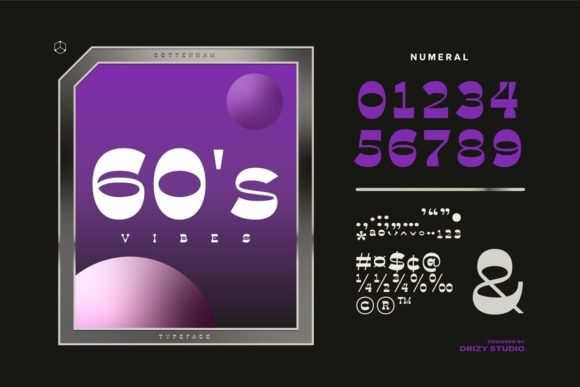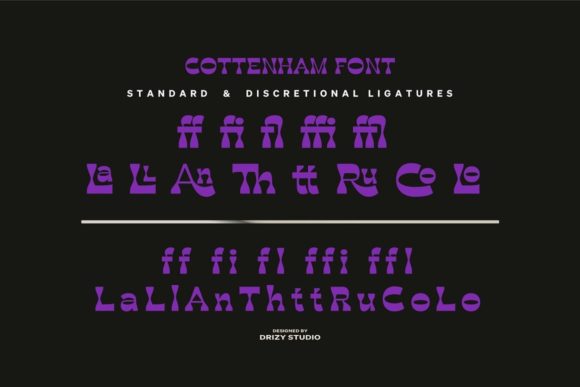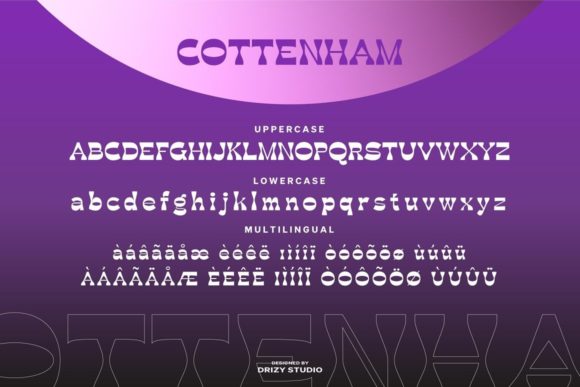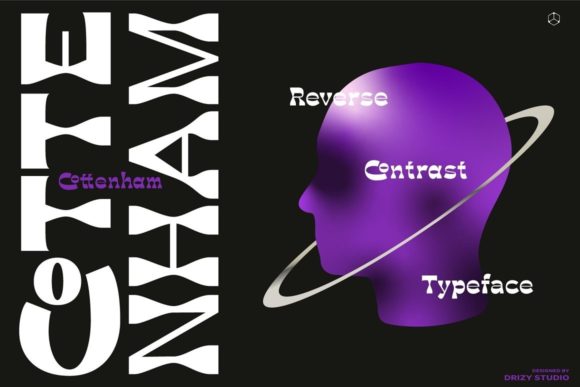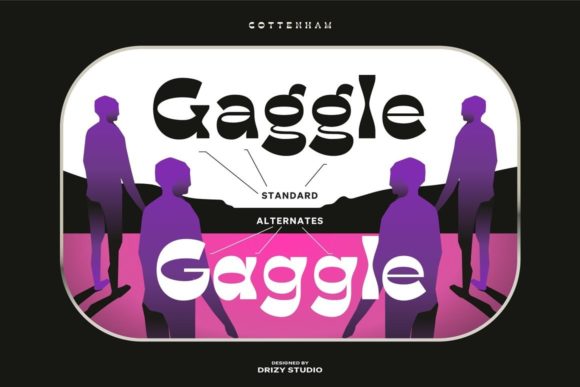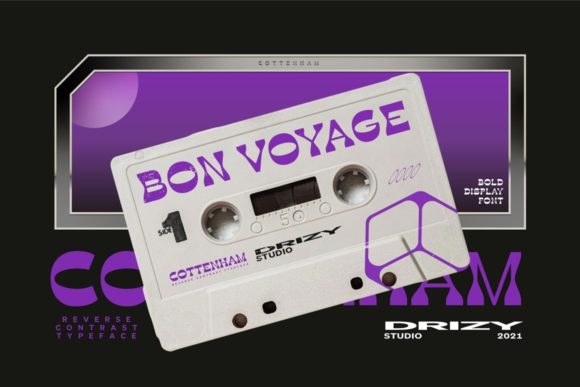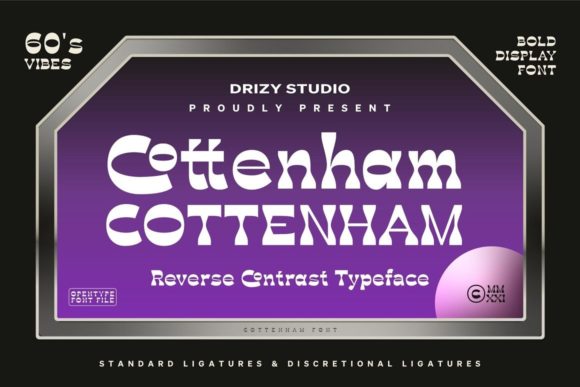
Cottenham Font: Elevate Your Creative Projects with a Futuristic Display Font
In the world of typography, fonts play a crucial role in conveying the tone and aesthetic of a creative project. Whether you’re a designer, craftsperson, or simply a DIY enthusiast, finding the right font can make all the difference. If you’re looking for a unique and futuristic display font that can elevate the look of your project, look no further than Cottenham Font. In this article, we’ll explore the features and benefits of Cottenham Font, and why it’s an excellent choice for a wide range of creative applications.
What is Cottenham Font?
Cottenham Font is a distinctive and modern display font designed to add a touch of futurism to any creative project. Its sleek lines, geometric shapes, and carefully crafted letterforms make it perfect for projects that require a bold and eye-catching typography. Whether you’re working on a movie title, sci-fi book cover, poster, or science magazine, Cottenham Font is an excellent choice.
Key Features of Cottenham Font
So, what makes Cottenham Font so special? Here are some of its key features:
- Unique and Futuristic Design: Cottenham Font boasts a one-of-a-kind design that’s both modern and futuristic. Its geometric shapes and sleek lines give it a cutting-edge look that’s sure to turn heads.
- Highly Versatile: Cottenham Font is an extremely versatile font that can be used in a wide range of creative projects, from movie titles and book covers to posters and science magazines.
- Easily Readable: Despite its futuristic design, Cottenham Font is surprisingly easy to read, making it perfect for projects that require both style and substance.
- Scalable: Cottenham Font is designed to be scalable, meaning it looks great in both large and small sizes.
Use Cases for Cottenham Font
Cottenham Font is an incredibly versatile font that can be used in a wide range of creative projects. Here are some examples of use cases where Cottenham Font shines:
- Movie Titles: Add a touch of futurism to your movie titles with Cottenham Font. Its bold and eye-catching design is perfect for sci-fi movies, action films, and more.
- Sci-Fi Books: Give your sci-fi book covers a professional and polished look with Cottenham Font. Its futuristic design is perfect for books, e-books, and audiobooks.
- Posters: Create eye-catching posters for events, products, or services with Cottenham Font. Its bold and modern design is sure to grab attention.
- Science Magazines: Add a touch of sophistication to your science magazines with Cottenham Font. Its clean and readable design makes it perfect for articles, headlines, and more.
Why Choose Cottenham Font?
So, why should you choose Cottenham Font for your creative projects? Here are some compelling reasons:
- Stand Out from the Crowd: Cottenham Font is a unique and distinctive font that will help your project stand out from the crowd.
- Professional and Polished Look: Cottenham Font gives your project a professional and polished look that’s sure to impress.
- Easily Customizable: Cottenham Font is easily customizable, allowing you to adjust its size, color, and style to fit your project’s needs.
In conclusion, Cottenham Font is an exceptional futuristic display font that’s perfect for creative projects that require a bold and eye-catching typography. Its unique design, versatility, and readability make it an excellent choice for a wide range of applications, from movie titles and sci-fi books to posters and science magazines. Whether you’re a designer, craftsperson, or simply a DIY enthusiast, Cottenham Font is a great addition to your typography toolkit.